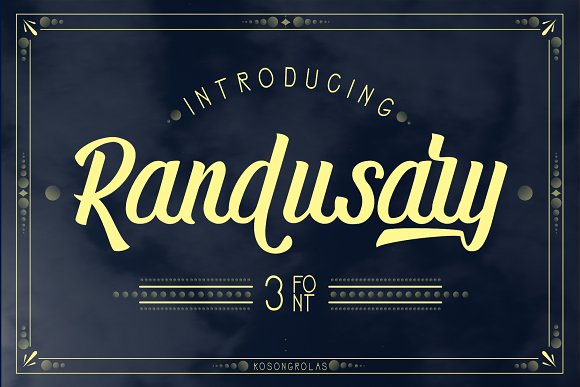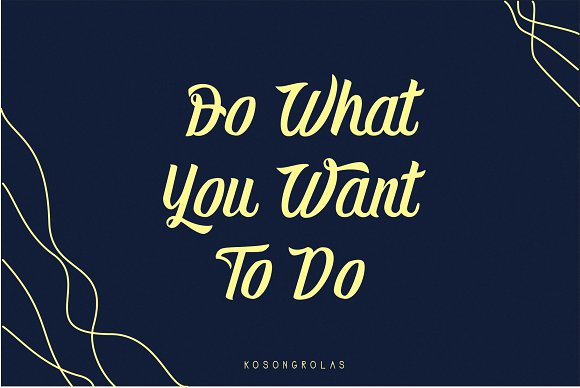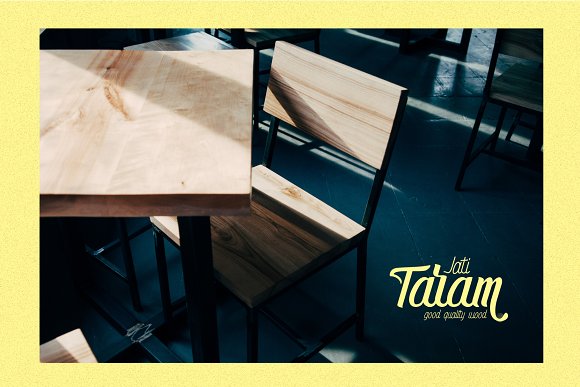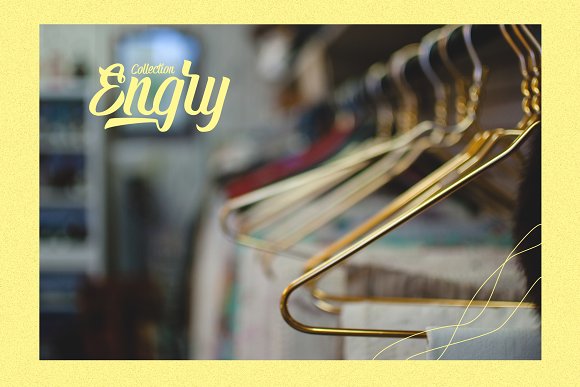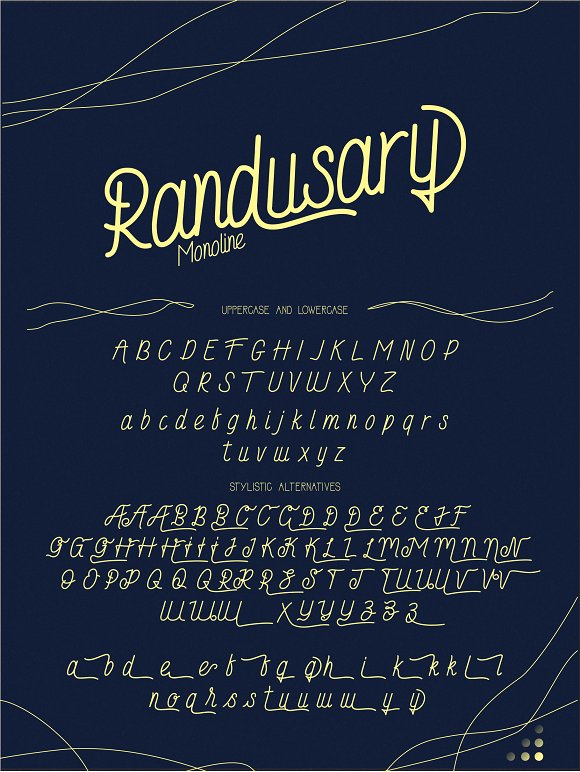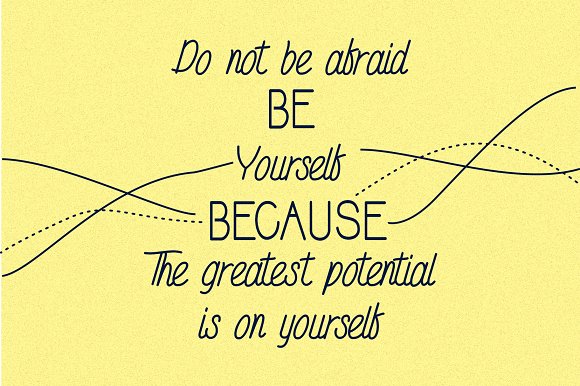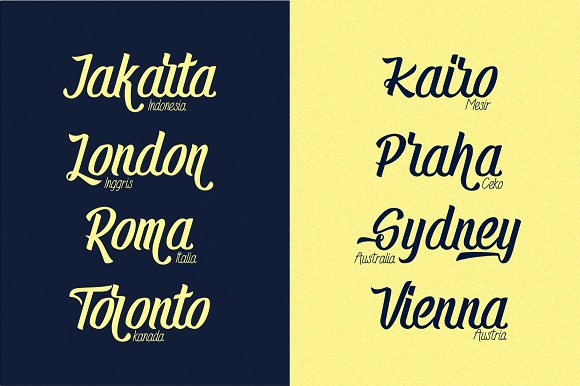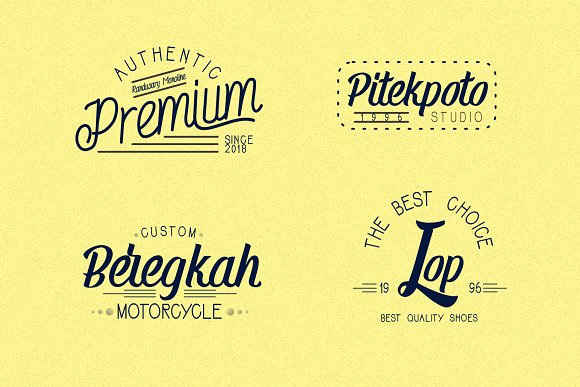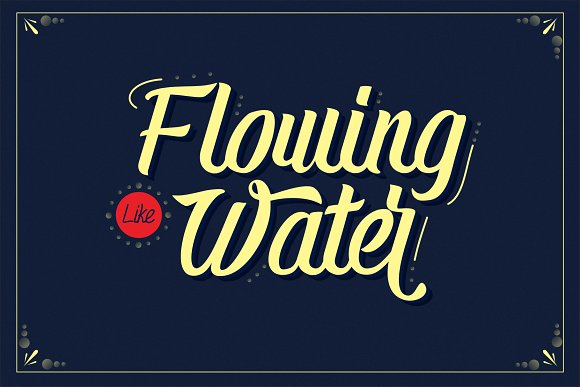
Randusary Font Pack 3 Font
Introducing my first debut with Randusary Font Pack, why the font pack because inside this font consists of three types of fonts namely, Script, Monoline, and Sans, each font has its own uniqueness and has an alternative that will make you interested and do not hesitate to buy it .